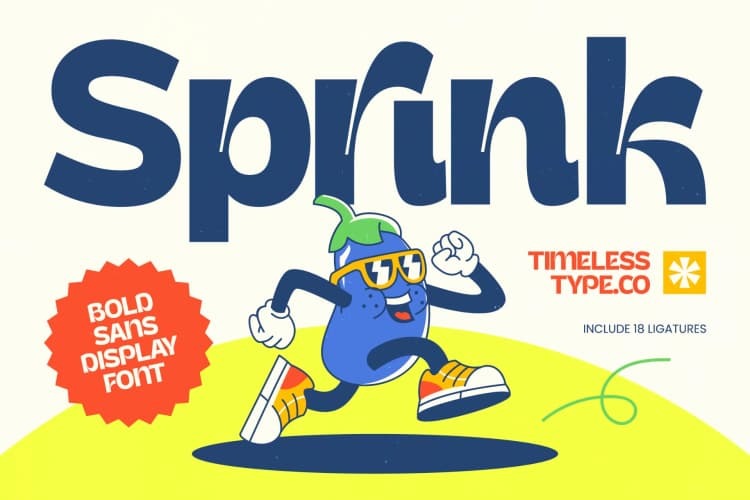
Sprink – Modern Sans Serif Font
Sprink – Modern Sans Serif Font is a masterclass in modern typography, blending playful curves with a heavyweight presence. Its bold silhouettes and fluid terminals create an energetic aesthetic that captures the viewer’s eye instantly. This high-impact typeface is designed for brands that want to communicate confidence and creativity without sacrificing legibility.
Elevate your visual identity with a font that excels in high-stakes design environments. This typeface is the ideal choice for vibrant packaging, dynamic poster design, and editorial layouts. It is perfect for streetwear branding, social media graphics, and logo design where a retro-modern feel is required. Whether you are working on advertising campaigns or youth-oriented products, Sprink – Bold Sans Display Font provides the visual weight needed to stand out in a crowded market.
Expand your creative horizons beyond borders with robust technical features. With its extensive multilingual support, Sprink – Bold Sans Display Font adapts seamlessly across global markets, making it incredibly versatile for international projects. Designers can rely on its broad character set to maintain brand consistency across various languages and regions. This technical flexibility ensures that Sprink – Bold Sans Display Font remains a top-tier asset for any global agency.
Unlock unparalleled creative potential with professional-grade typographic tools. Featuring 18 unique ligatures, Sprink – Bold Sans Display Font offers customizable flair for sophisticated graphic design. Its timeless appeal and robust construction make it an essential tool for any professional’s font library. Choose Sprink – Bold Sans Display Font to ensure your next project delivers a compelling message with undeniable style and commercial success.